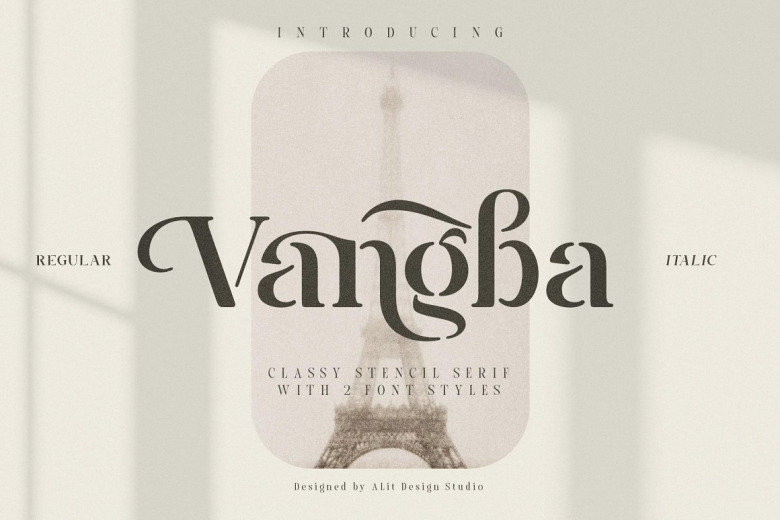
Vangba Font
The Vangba Serif Font is a subheading font that enhances the features of stencils with a weighted structure. It has an uneven, dynamic appearance, yet is strikingly regular and distinct enough to catch one’s eye.  Serif typefaces such as Vangba can be used in very general way, specifically in the design of vintage style.
Vangba Serif Font